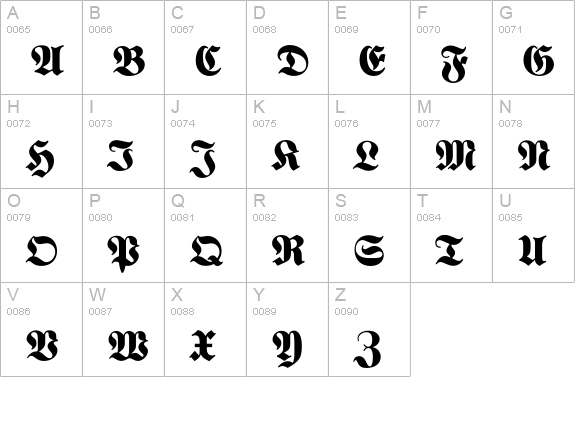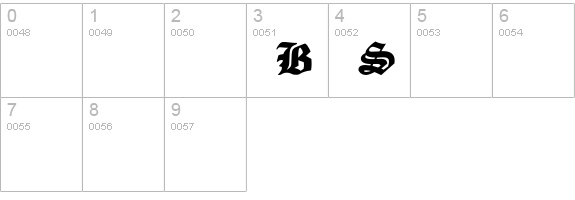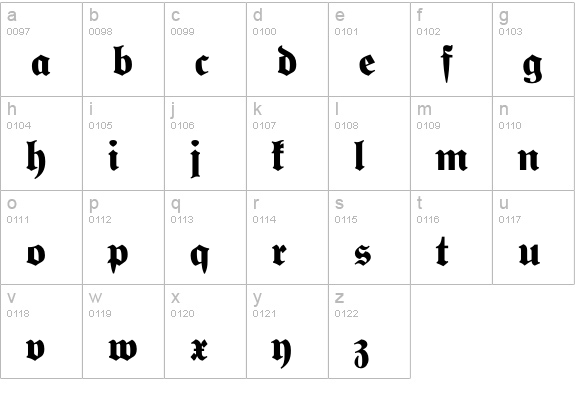
SpecialAlphabetsP03 Font Details
SpecialAlphabetsP03 font is a unique and captivating typeface that will bring a touch of creativity and originality to any design project. With its intricate and elaborate letterforms, this font is perfect for adding a sense of intrigue and mystery to your artwork. The SpecialAlphabetsP03 font features a wide range of characters that are beautifully designed with a combination of curves, angles, and intricate details. Each letter is carefully crafted to create a visually stunning effect, making this font stand out from the crowd. Whether you are working on a logo design, a poster, or any other project that requires a striking and eye-catching font, SpecialAlphabetsP03 is sure to impress. Its unique and artistic design will instantly grab attention and leave a lasting impression on your audience. One of the best things about SpecialAlphabetsP03 font is that it is available for free download at FontsMarket.com. This means that you can easily access and use this font in your projects without having to worry about any cost. It is freely available for personal and commercial use, making it a valuable resource for designers and creatives. So don't miss out on the opportunity to enhance your designs with this stunning and visually appealing font. Download SpecialAlphabetsP03 today from FontsMarket.com and start creating designs that truly stand out.